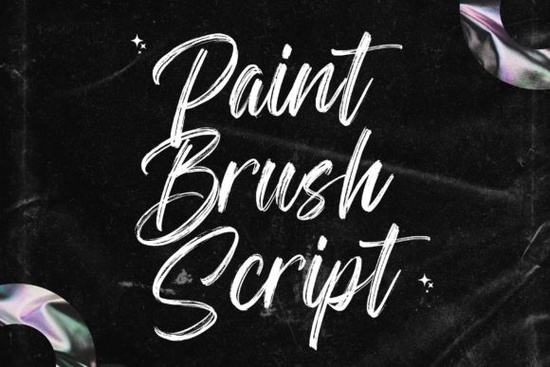
Looking for a script font that actually feels hand-painted? Paint Brush Script Font is a modern calligraphy typeface designed to look like real brush lettering. It works beautifully for logos, t-shirt designs, branding projects, and creative products. If you're a designer, crafter, or small business owner searching for a natural-looking handwritten font, this one is worth a closer look.
What Does Paint Brush Script Font Look Like?
Paint Brush Script has smooth, flowing strokes that mimic a real paintbrush on paper. Unlike overly decorative calligraphy fonts, it stays readable at different sizes. The letterforms have slight texture and variation, which gives designs an organic, handcrafted feel.
This kind of style works well when you want something personal and warm without looking sloppy or hard to read. It sits right in the middle of casual and polished.
What Projects Work Best With a Brush Script Font?
Brush script fonts are versatile. Here are some common ways creative professionals use them:
- Logo design especially for lifestyle brands, bakeries, salons, and boutique shops
- T-shirt graphics bold brush lettering stands out on apparel
- Social media posts quotes, announcements, and promotional banners
- Wedding invitations elegant but not too formal
- Packaging and labels great for handmade or artisan products
- Print-on-demand products mugs, tote bags, posters
- Greeting cards adds a personal, crafted touch
Because Paint Brush Script is a natural calligraphy font, it pairs well with clean sans-serif typefaces. Use it as a headline or accent font, and let a simpler font handle longer text.
How Does It Compare to Other Script Fonts?
There are many script fonts available, and the right one depends on the mood you're going for. Here's how Paint Brush Script fits alongside a few other popular options:
- Homestead This one leans more toward a rustic, rugged handwritten style. It's a good fit for farmhouse branding or outdoor-themed designs.
- Strawberry Chesscake A playful and bouncy cursive that's great for fun, lighthearted projects like kids' products or dessert menus.
- Milkshake If you need a thicker, bolder brush style, this one has more visual weight and works well at larger sizes.
- Rainy Winter A delicate single-line font that's ideal for minimalist designs, engraving mockups, and thin-line illustrations.
Paint Brush Script sits comfortably in the middle not too thin, not too bold. It's expressive without being overwhelming. That balance makes it a solid default choice when you're unsure what style direction to take.
How Do You Pair Script Fonts With Other Typefaces?
One of the trickiest parts of using handwritten fonts is pairing them with other typefaces. Here are a few simple rules that help:
- Contrast matters. Pair a flowing script with a clean geometric sans-serif. Avoid pairing two script fonts together.
- Use the script font sparingly. It works best for short text headlines, names, or taglines. Don't set paragraphs in it.
- Mind the weight. If your brush font is thick and textured, pair it with a light or regular weight companion font.
- Check readability. Always test your font pairing at the actual size it will be displayed or printed.
For example, Paint Brush Script looks great next to a simple sans-serif like Montserrat or Lato. The contrast between the organic brush strokes and clean geometric lines creates visual interest without clutter.
Is This Font a Good Fit for Print-on-Demand Sellers?
If you sell on platforms like Redbubble, Merch by Amazon, or Etsy, having a reliable set of commercial-use fonts is essential. Paint Brush Script works well for POD because:
- It's legible on physical products like mugs and shirts
- It has enough personality to stand out in a crowded marketplace
- It pairs easily with other design elements
- It works in both dark and light color schemes
Quick Checklist Before You Buy
Before choosing any script font for your next project, run through this list:
- ✅ Does the font match the mood and tone of your brand or project?
- ✅ Is it readable at the size you'll actually use it?
- ✅ Does the license cover your intended use (personal, commercial, POD)?
- ✅ Does it pair well with your other typefaces?
- ✅ Are the characters you need included (numbers, punctuation, multilingual support)?
- ✅ Have you tested it in a mockup before committing?